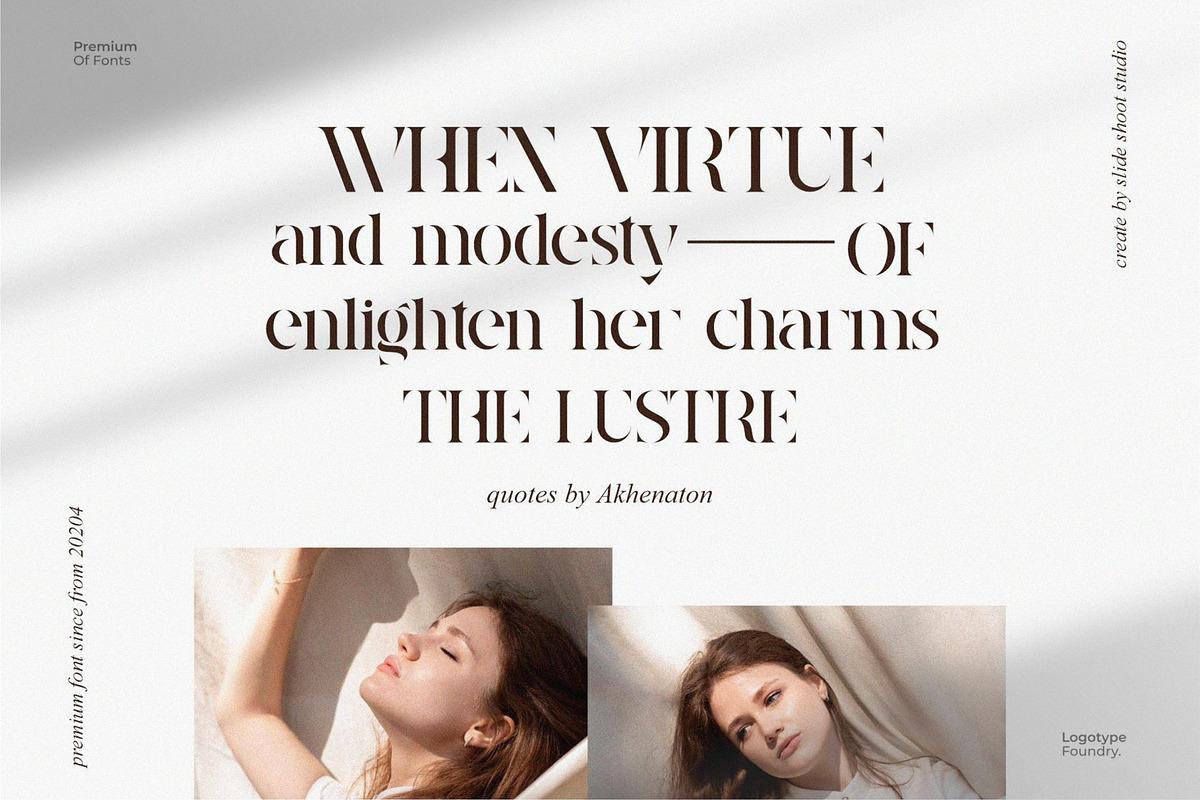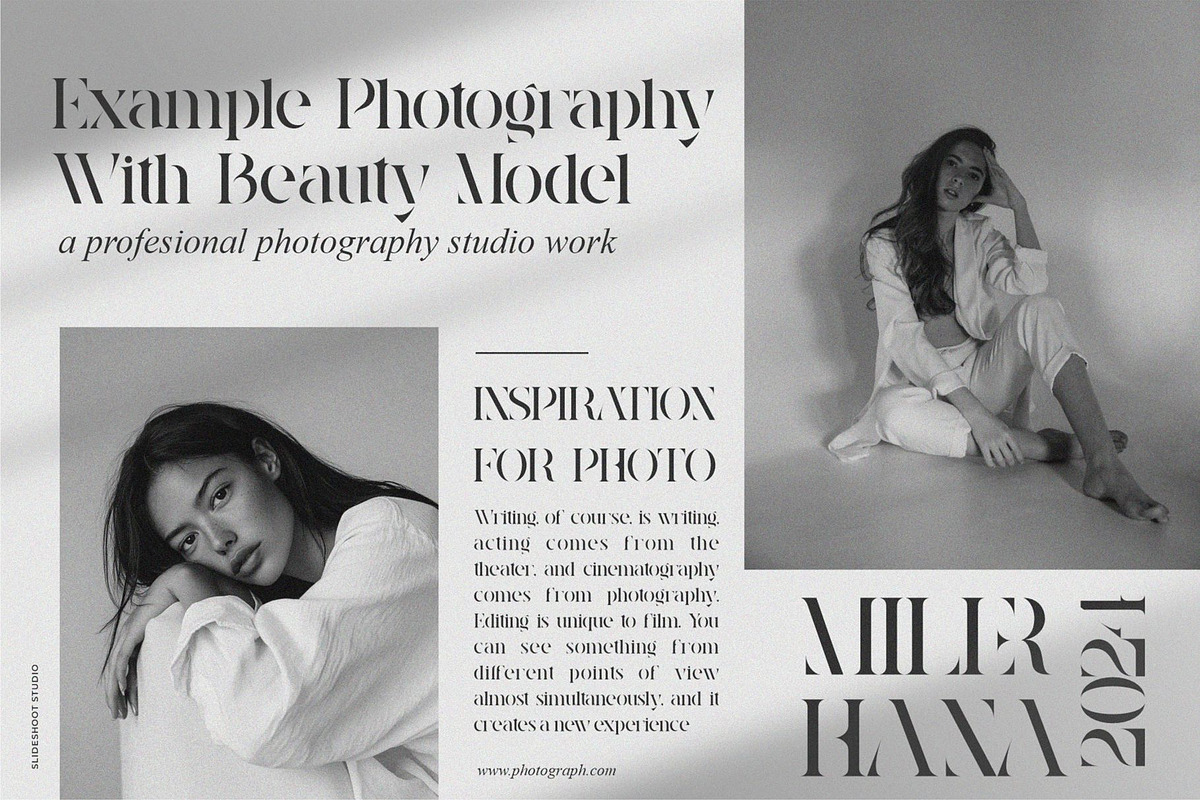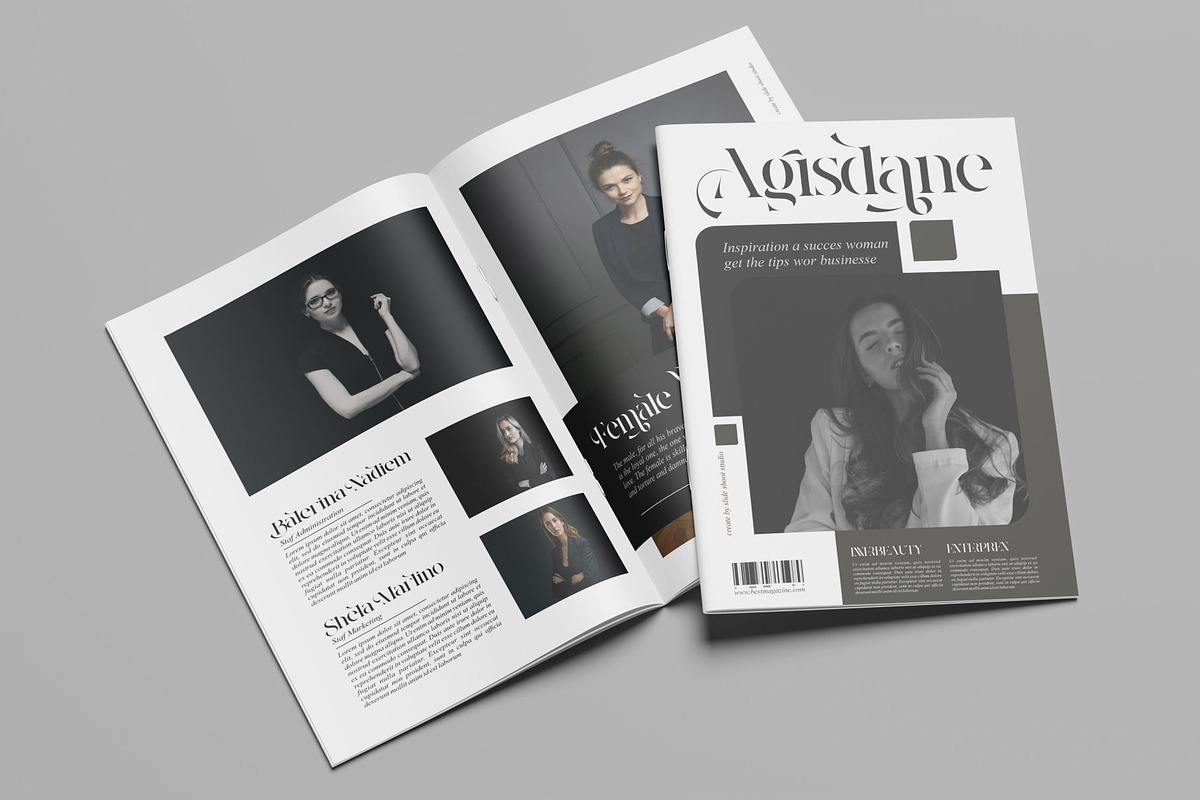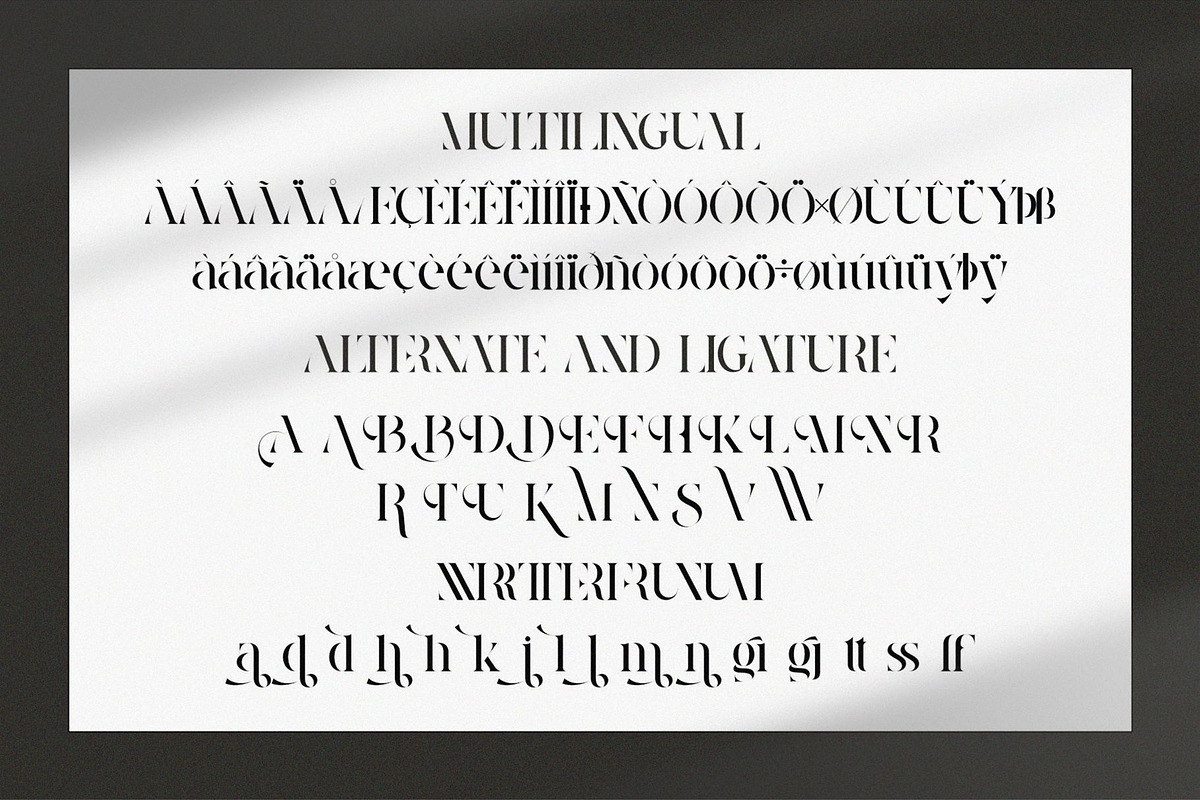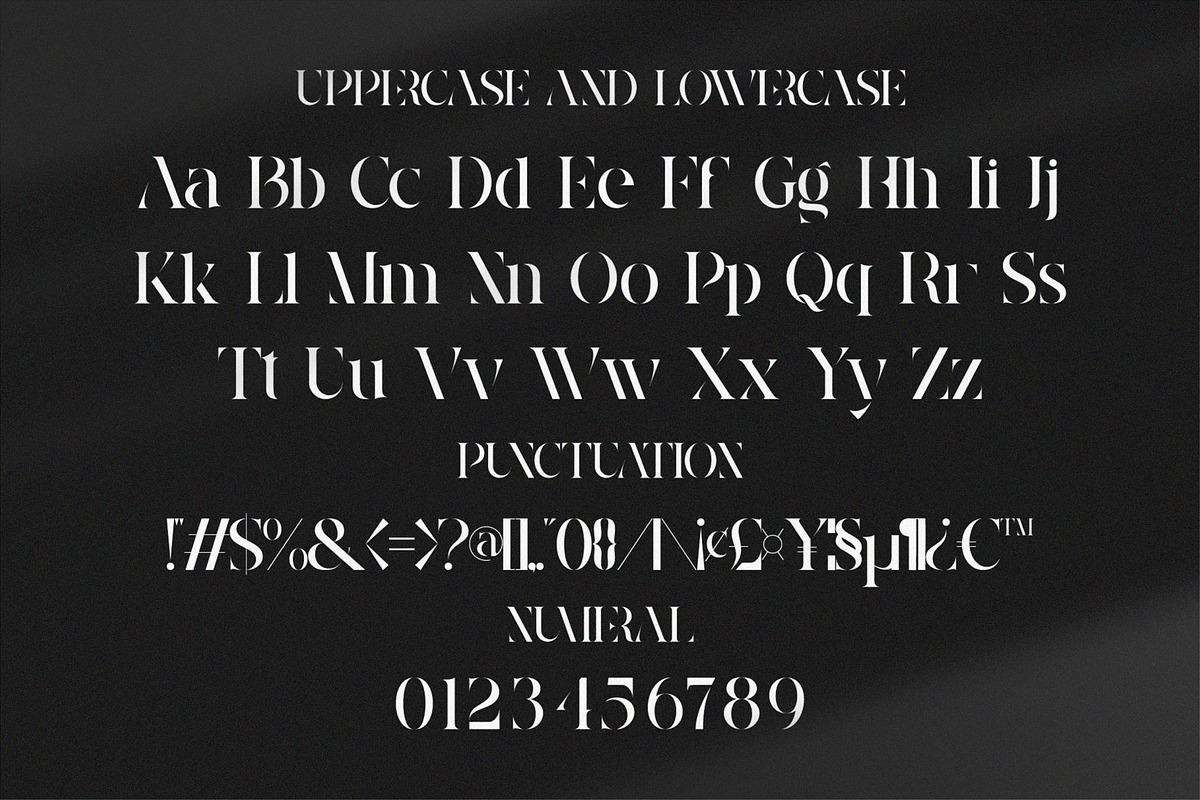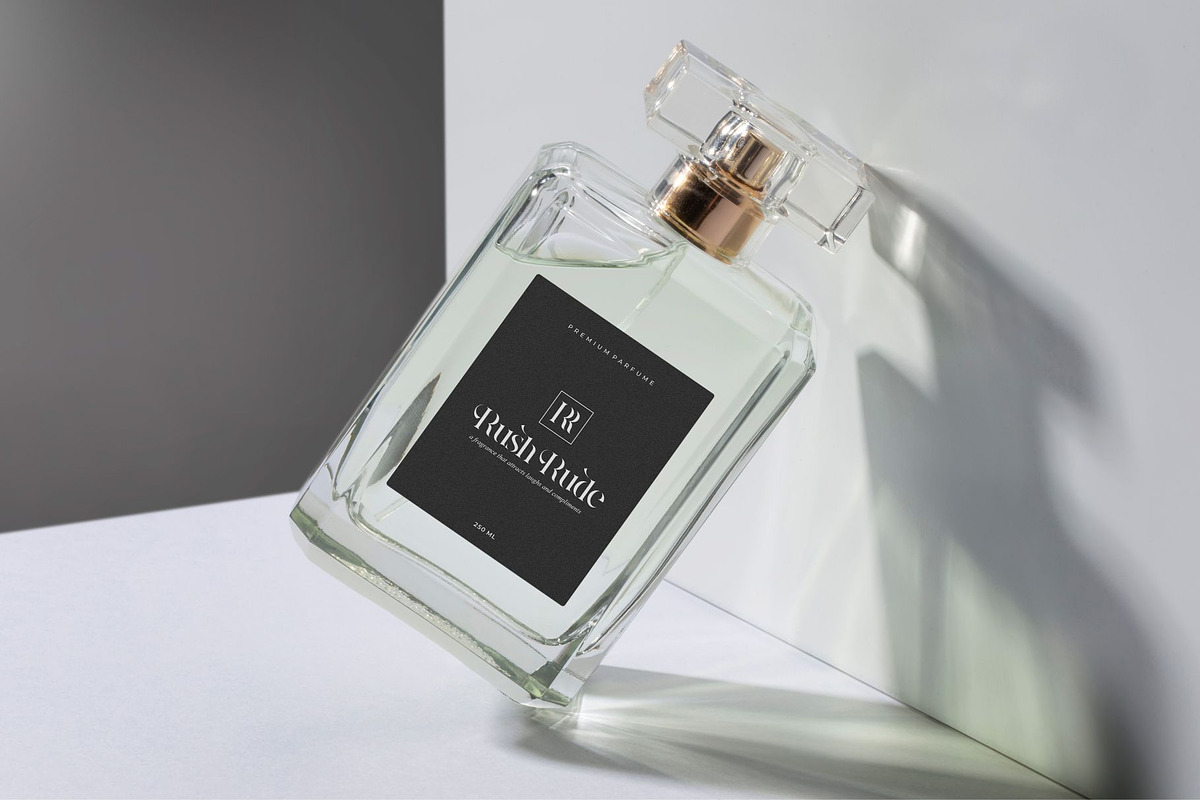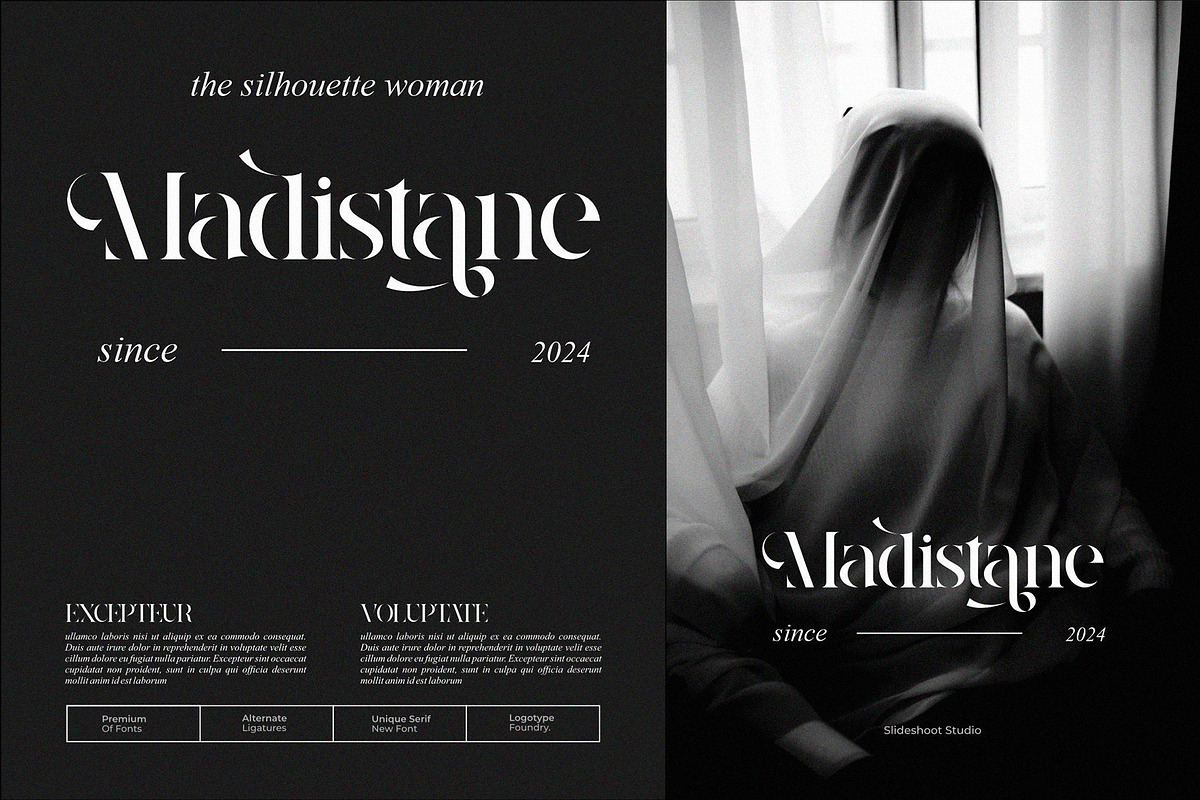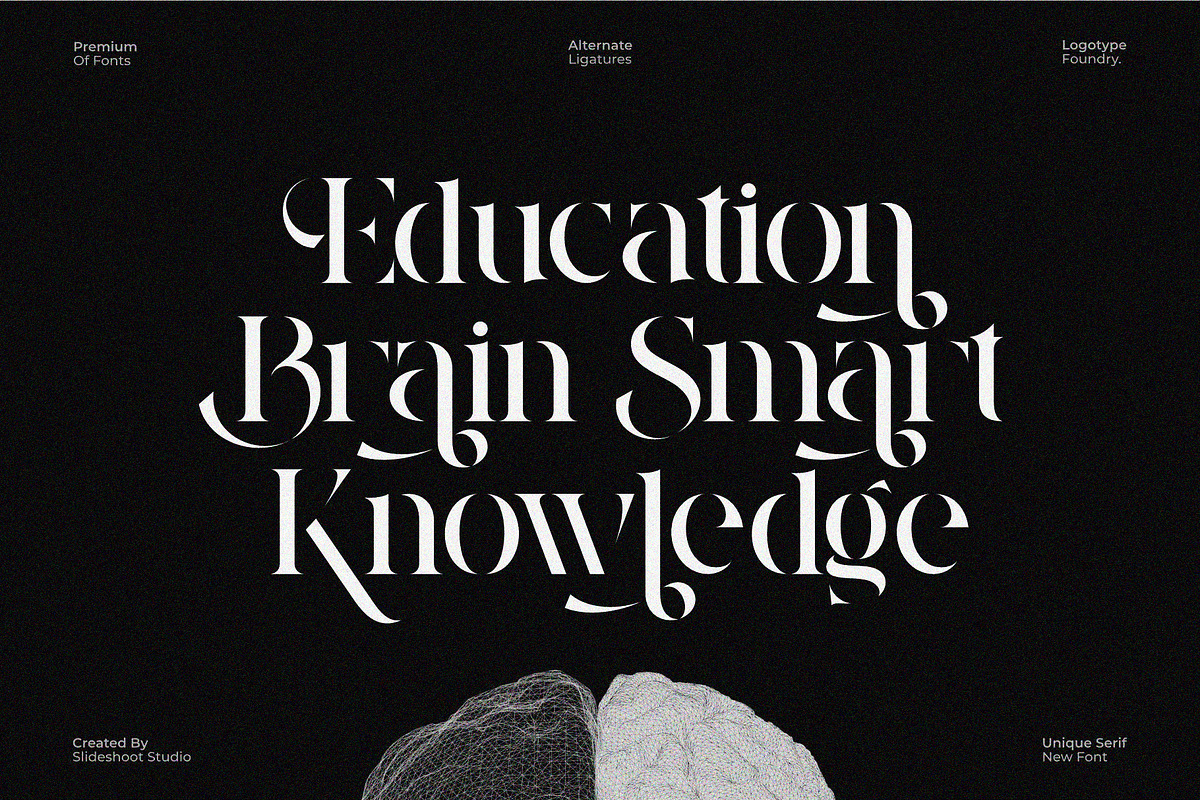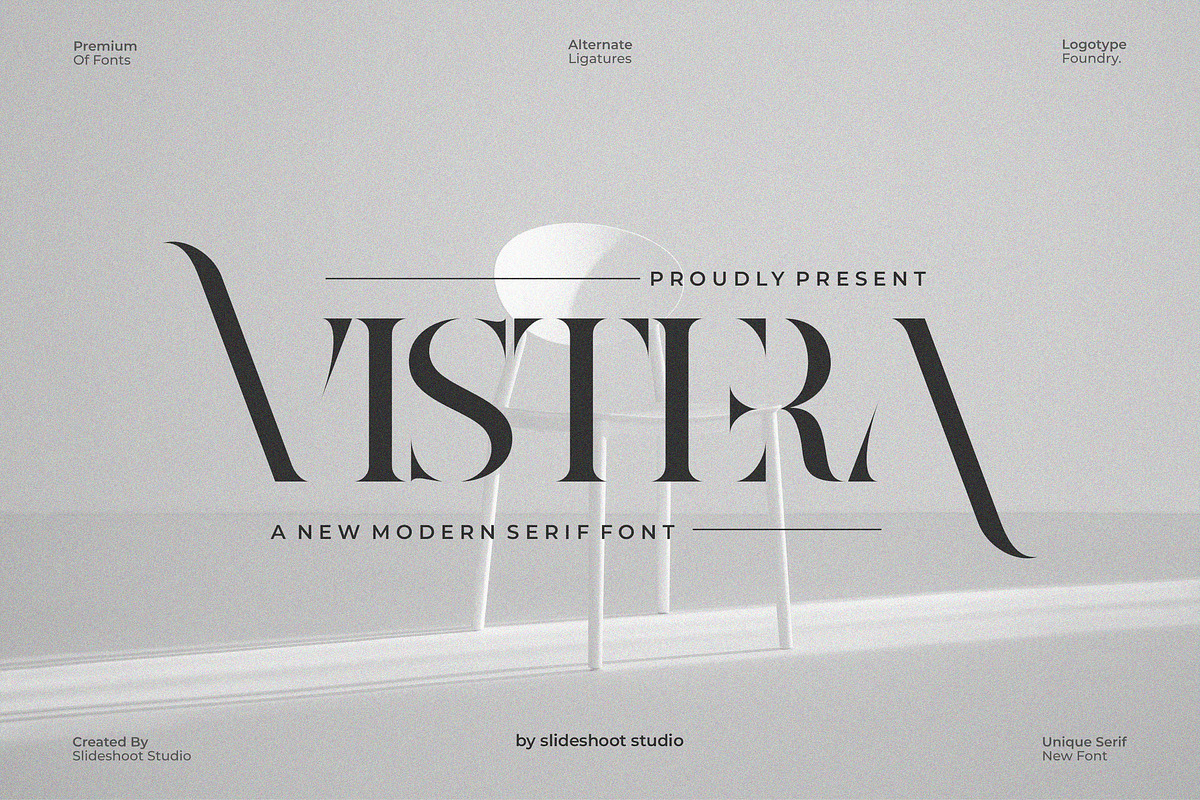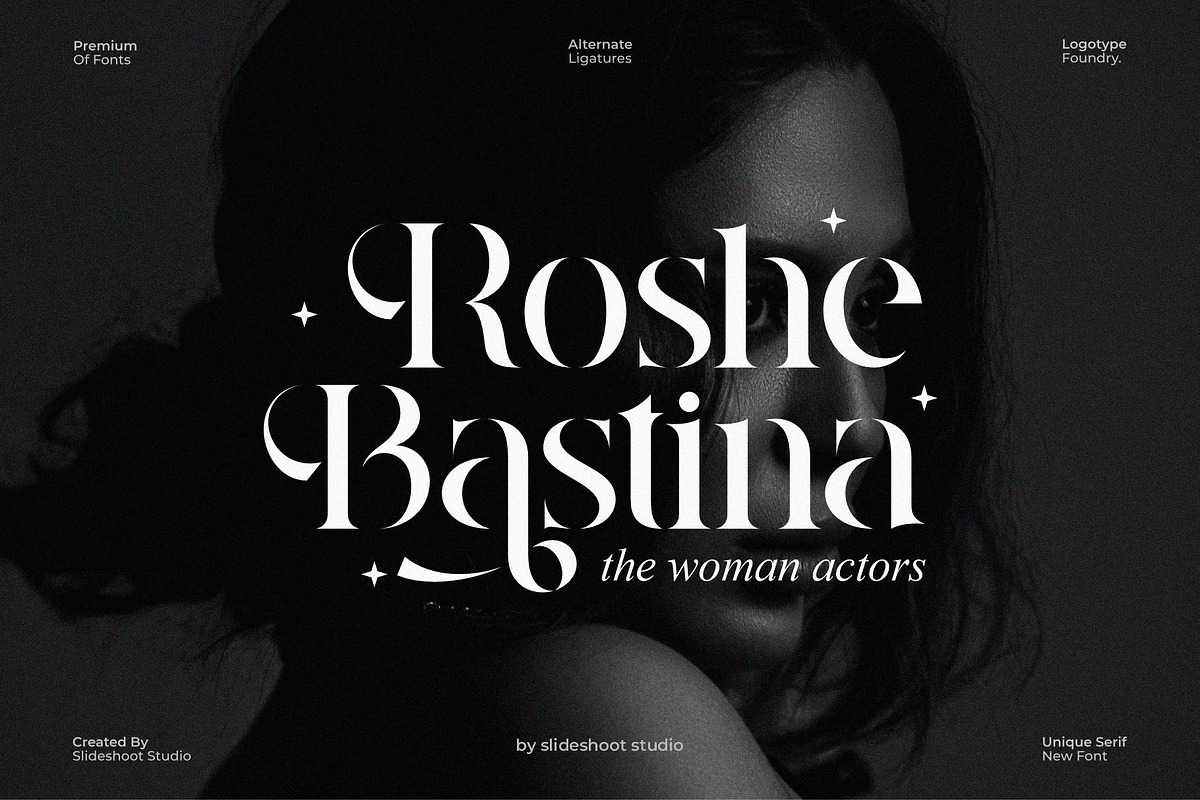
Vistera || Stencil Serif Font
Vistera Serif is a modern and elegant stencil font type for all branding and logo designs. This modern and elegant Serif font has a beautiful character. This font is suitable for invitation card designs, cool logos, movie titles, movie names, business cards, book titles, brand names, and various other designs. Vistera Serif is a smooth serif font that exudes sophistication and the moment. Its stylish alterations and ligatures make this font a perfect partner for any project.